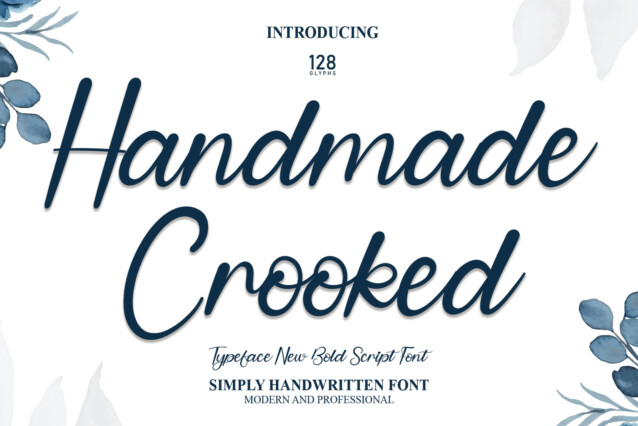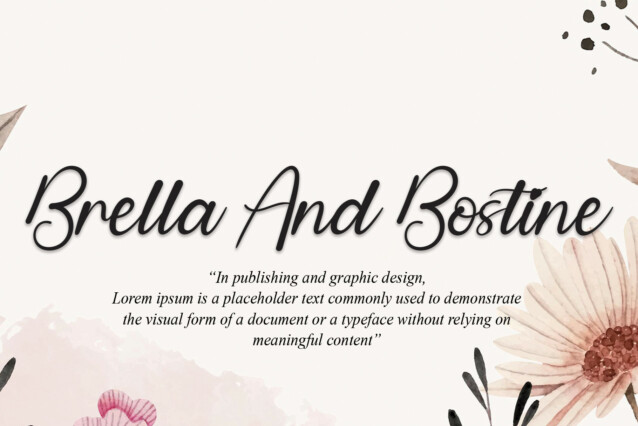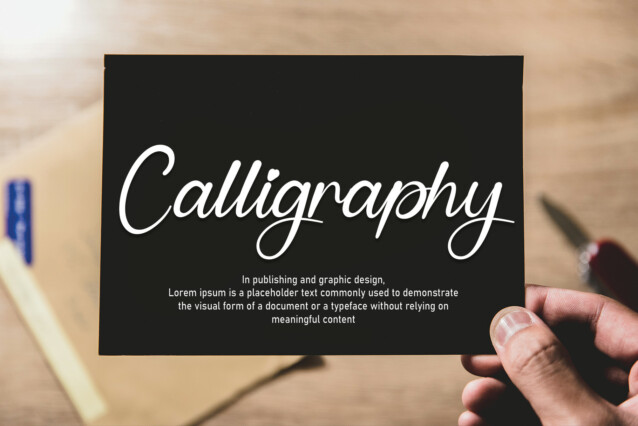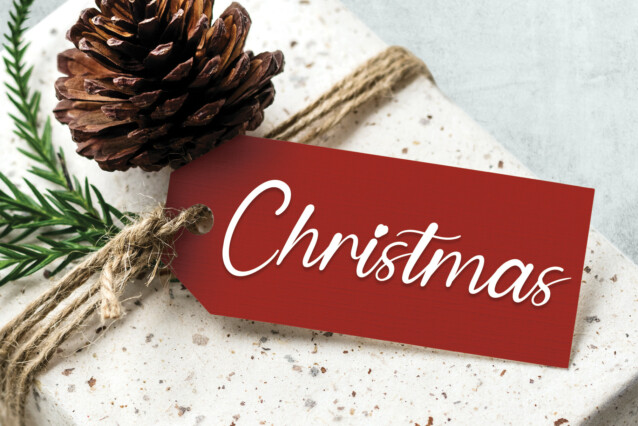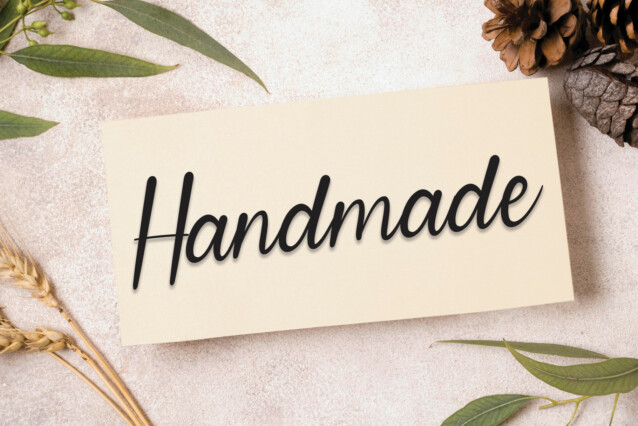
Handmade Crooked Script Font
Handmade Crooked Script Font feels equally charming and elegant. It looks stunning on wedding invitations, thank you cards, quotes, greeting cards, logos, business cards, and every other design which needs a handwritten touch.